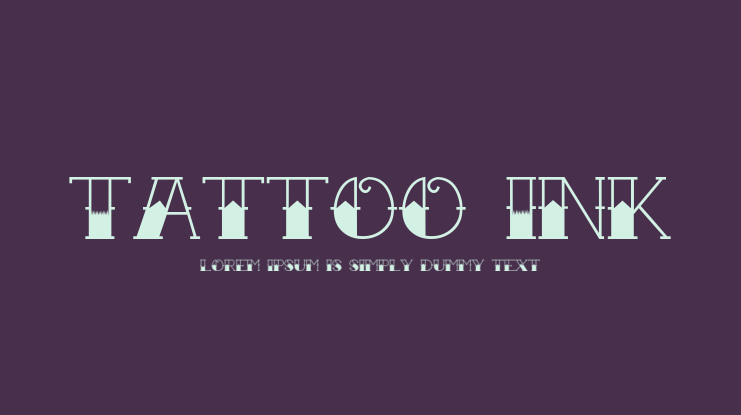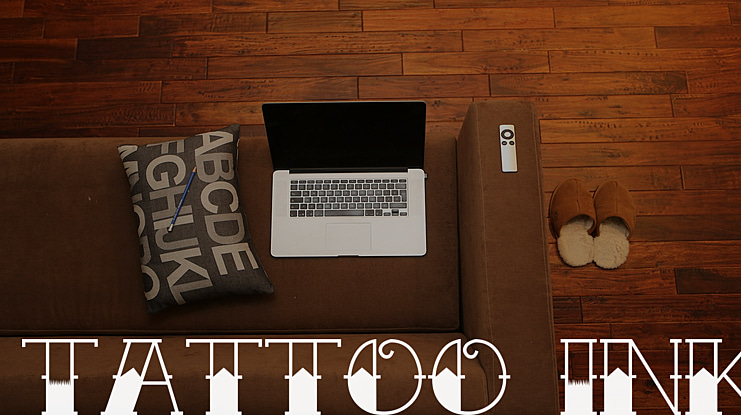
Tattoo Ink Font
Tattoo Ink is a *FREE* font containing two of the infinite varieties of tattoo letters being stitched on skin worldwide. Uppercase letters contain a scratchfill, while lowercase letters contain angled fill. Questions/Comments: